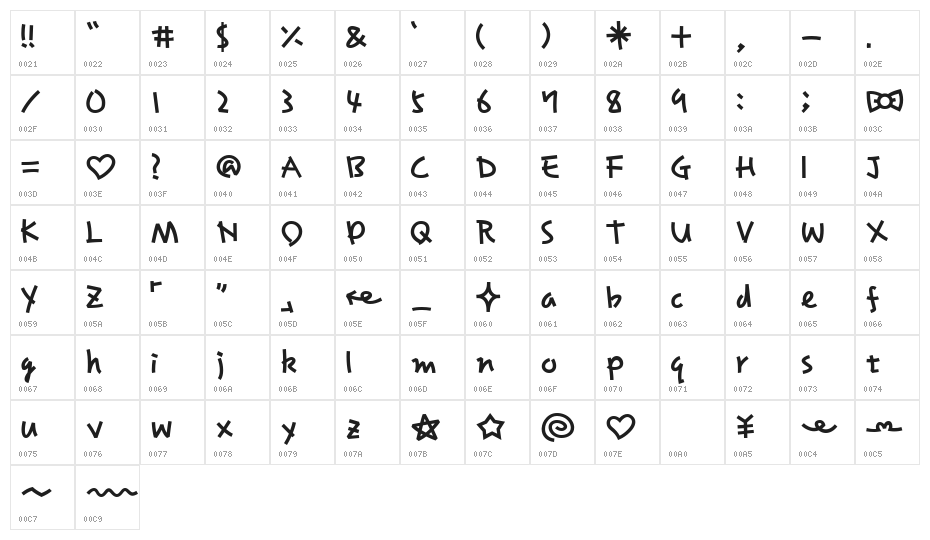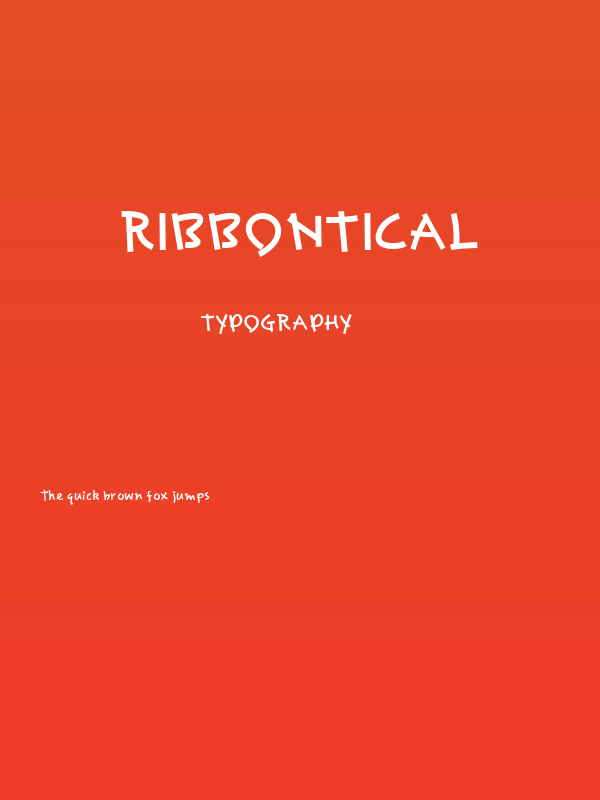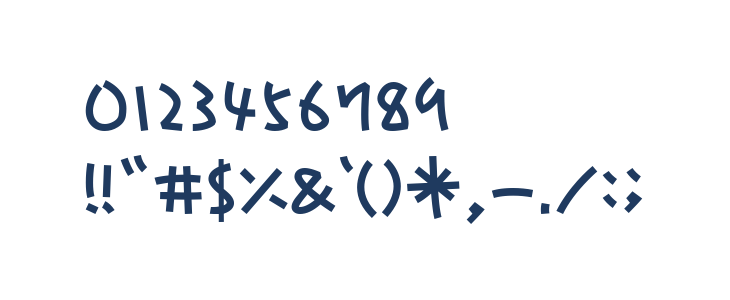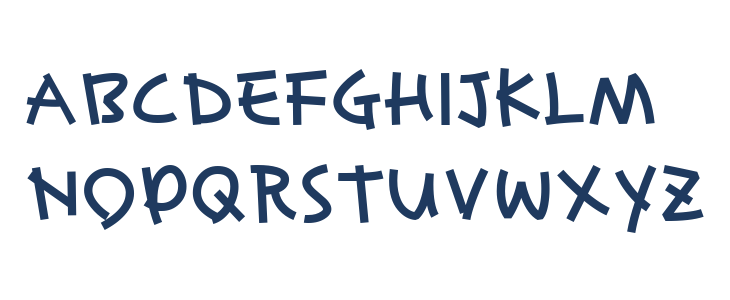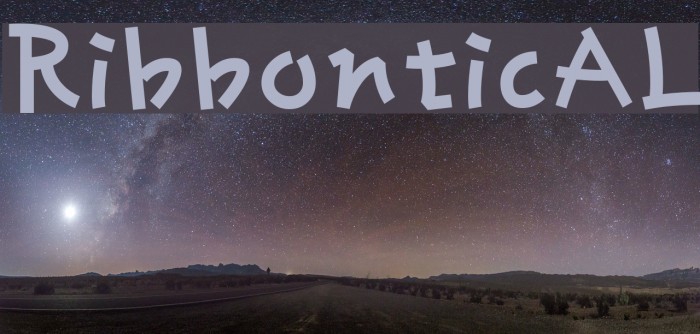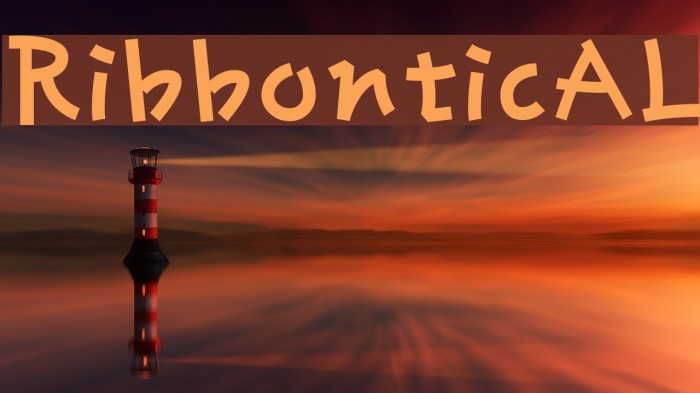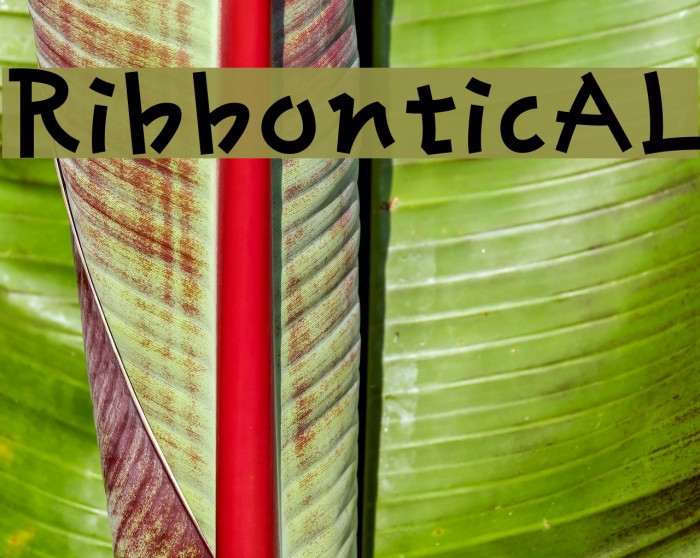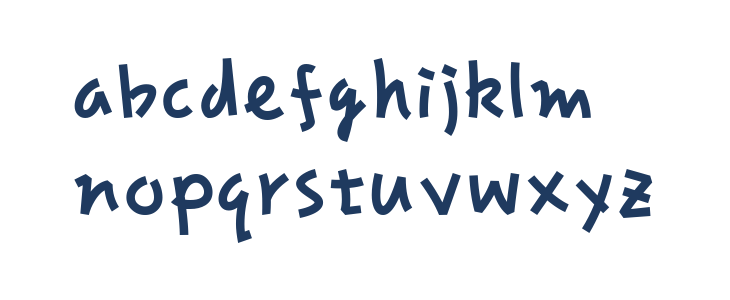
RibbonticAL Font
RibbonticAL Description
This font features a playful and dynamic style with a handwritten appearance. The characters are bold and slightly irregular, giving them a lively and informal feel. The strokes are thick and consistent, with a slight tilt that adds to the casual aesthetic. The uppercase and lowercase letters maintain a cohesive look, while the numerals and special characters blend seamlessly with the overall design. This font's energetic and whimsical nature makes it suitable for projects that require a fun and approachable vibe.
| Proposed Projects | Ideal for children's book covers, playful branding, casual invitations, and creative posters. |